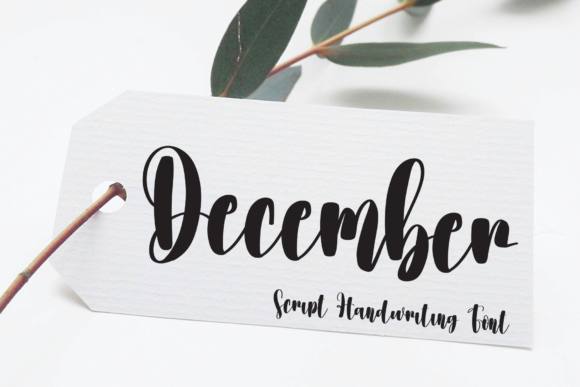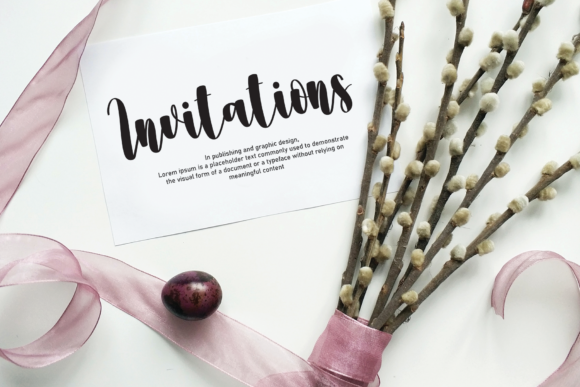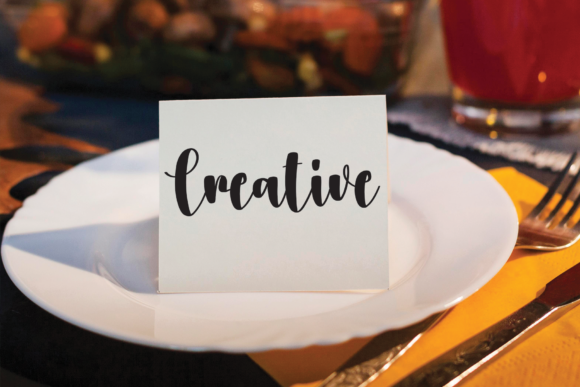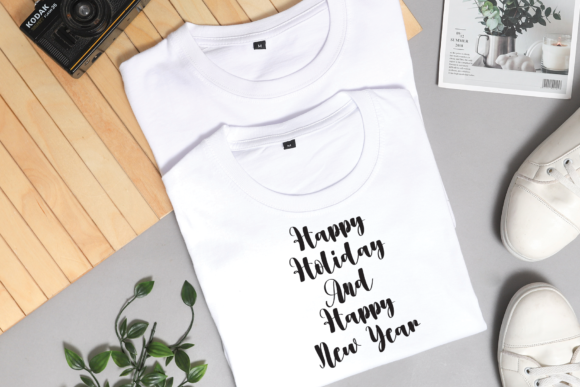
December Font
About December Font
December is a script handwriting font, and it looks beautiful on wedding invitations, greeting cards, logos, posters, labels, t-shirt designs, logos, business cards, and more!